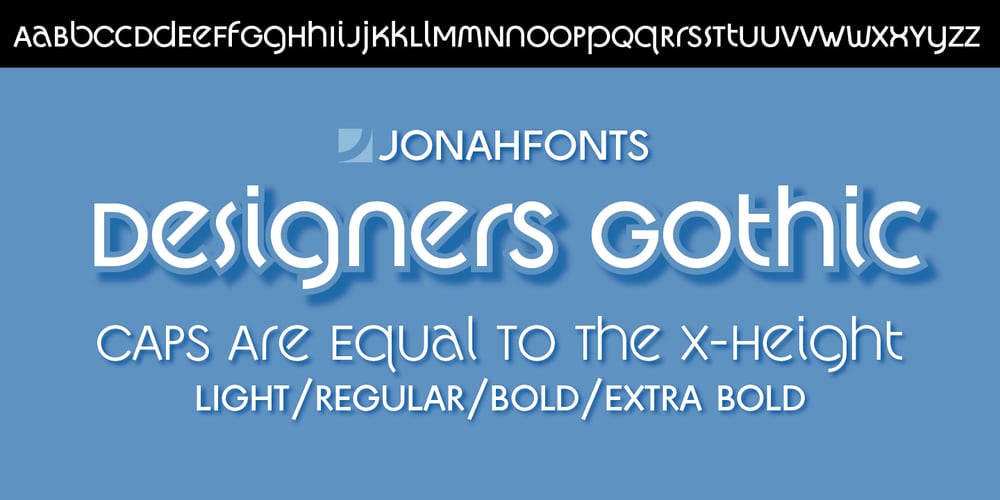
Designers Gothic Font Family was designed by published by Jonahfonts. Designers Gothic contains 4 styles and family package options. Occasionally a designer needs the combination of caps and lower case glyphs for a particular purpose, visually or otherwise. Designer’s Gothic was designed with the Caps equal to the x height.